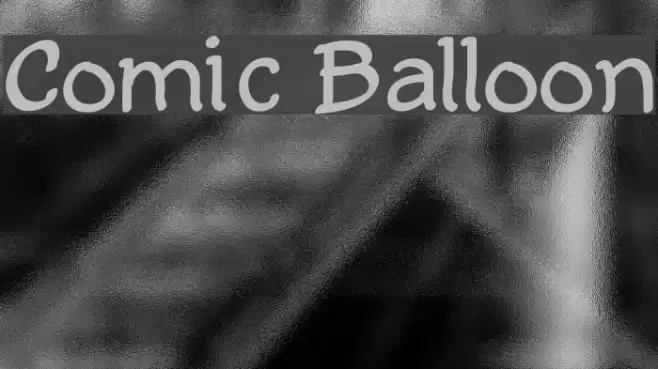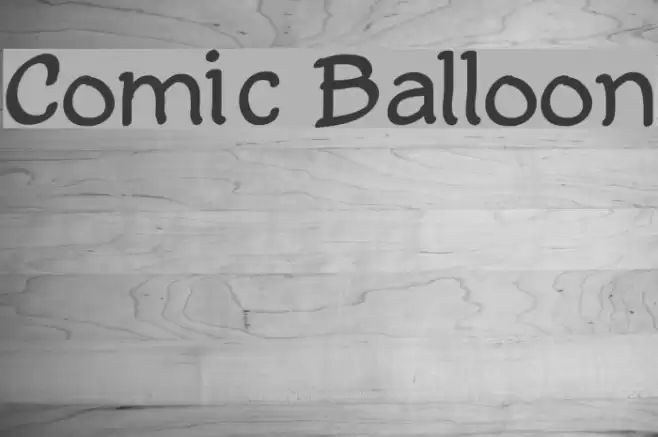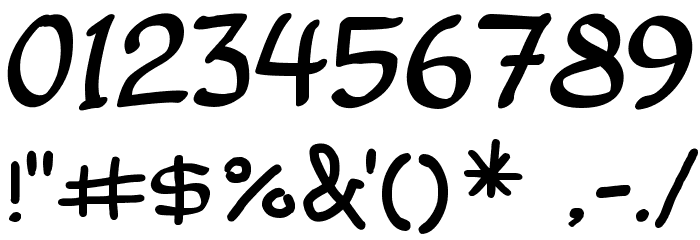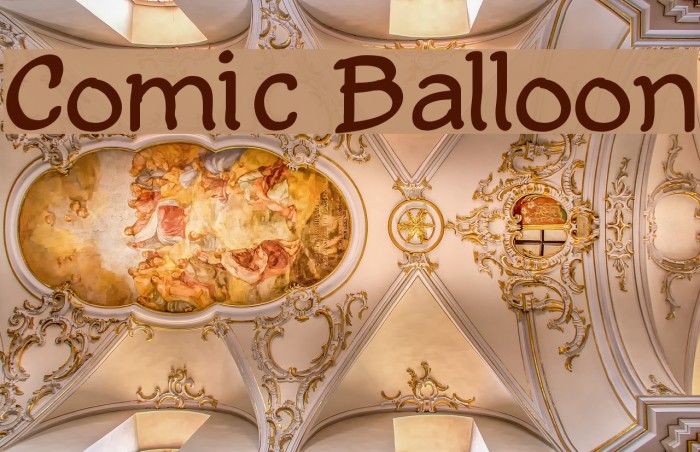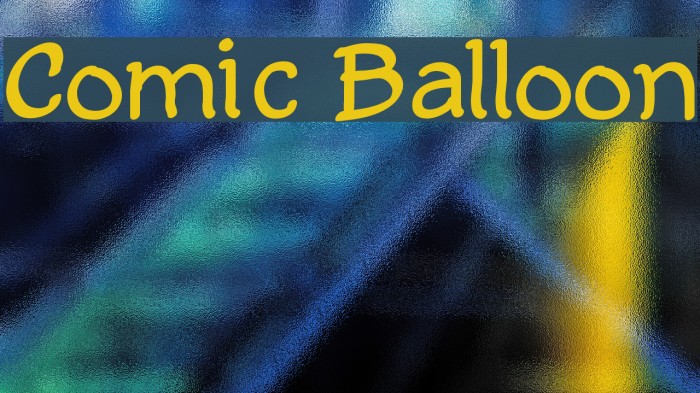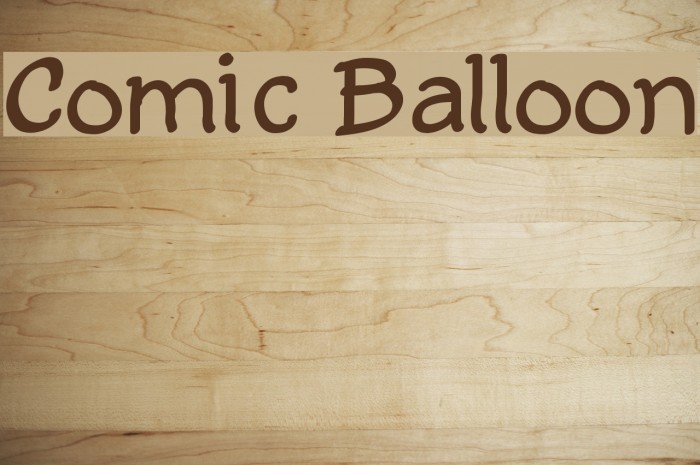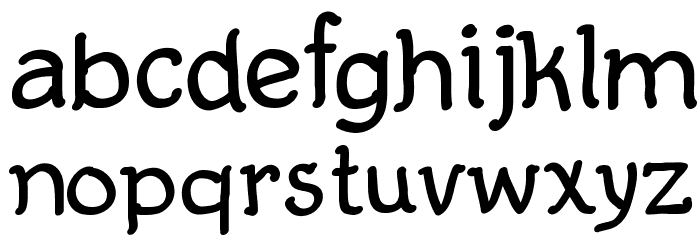
Comic Balloon Font
Comic Balloon Description
This playful and whimsical font features rounded, balloon-like characters that convey a sense of fun and lightheartedness. The strokes are smooth and consistent, with a slight bounce that adds to its comic appeal. The uppercase and lowercase letters maintain a uniform style, with the uppercase being slightly larger and more pronounced. Numbers and special characters are designed to match the playful theme, making them easily readable and visually appealing. This font is perfect for projects that require a touch of humor and creativity.
A playful, balloon-like font with smooth, rounded characters from Comic fonts.
- Proposed Projects: Ideal for comic strips, children's books, party invitations, and playful branding.
- Overall Style: Playful